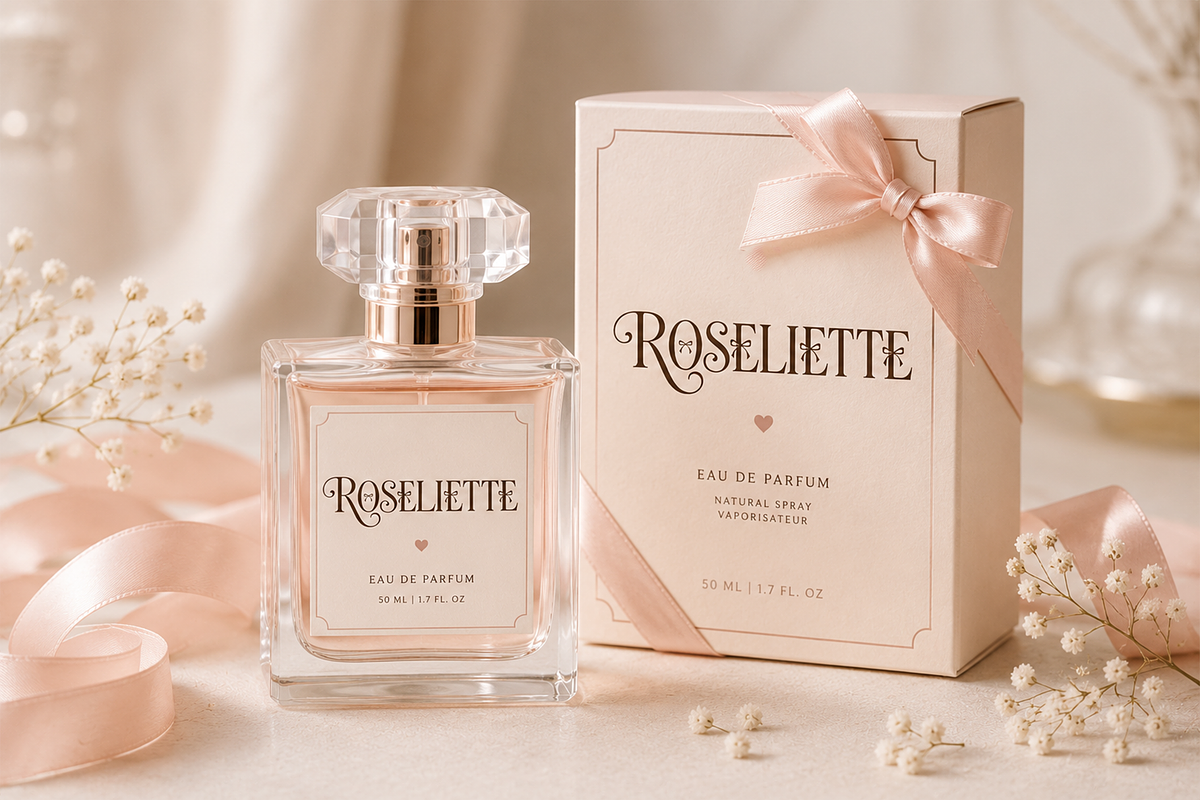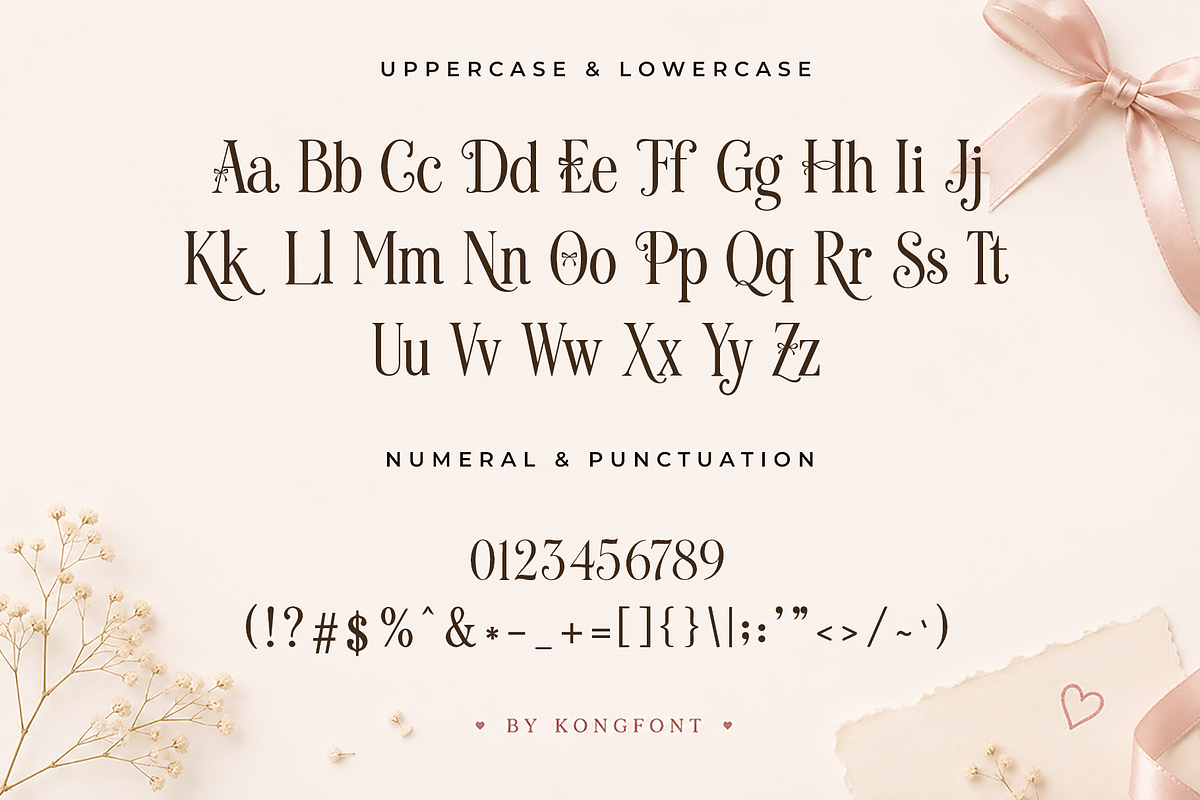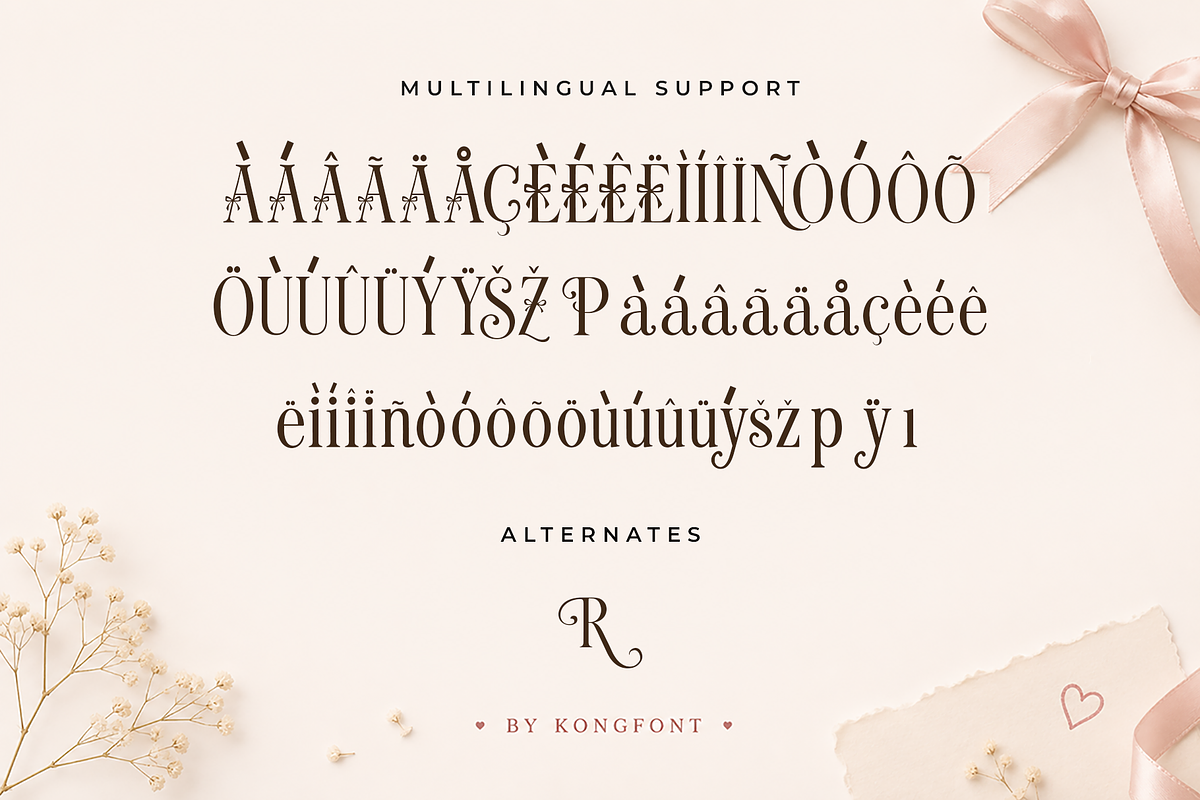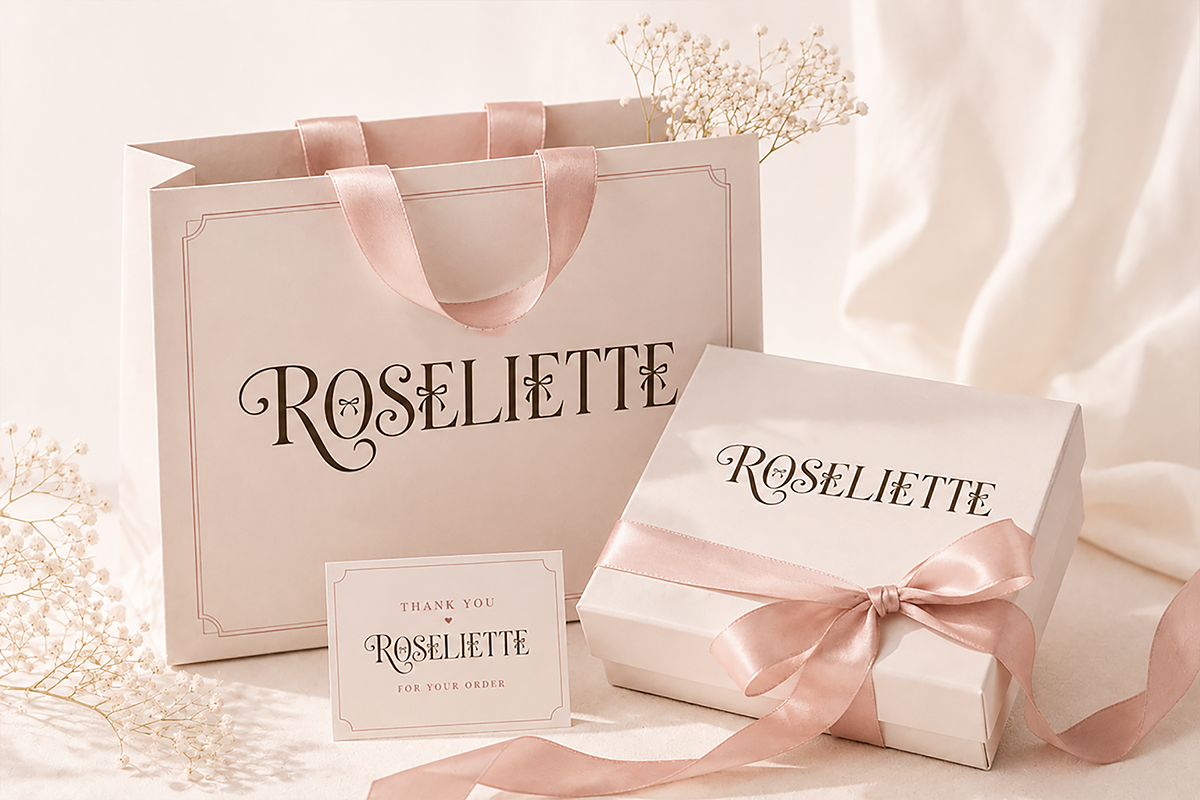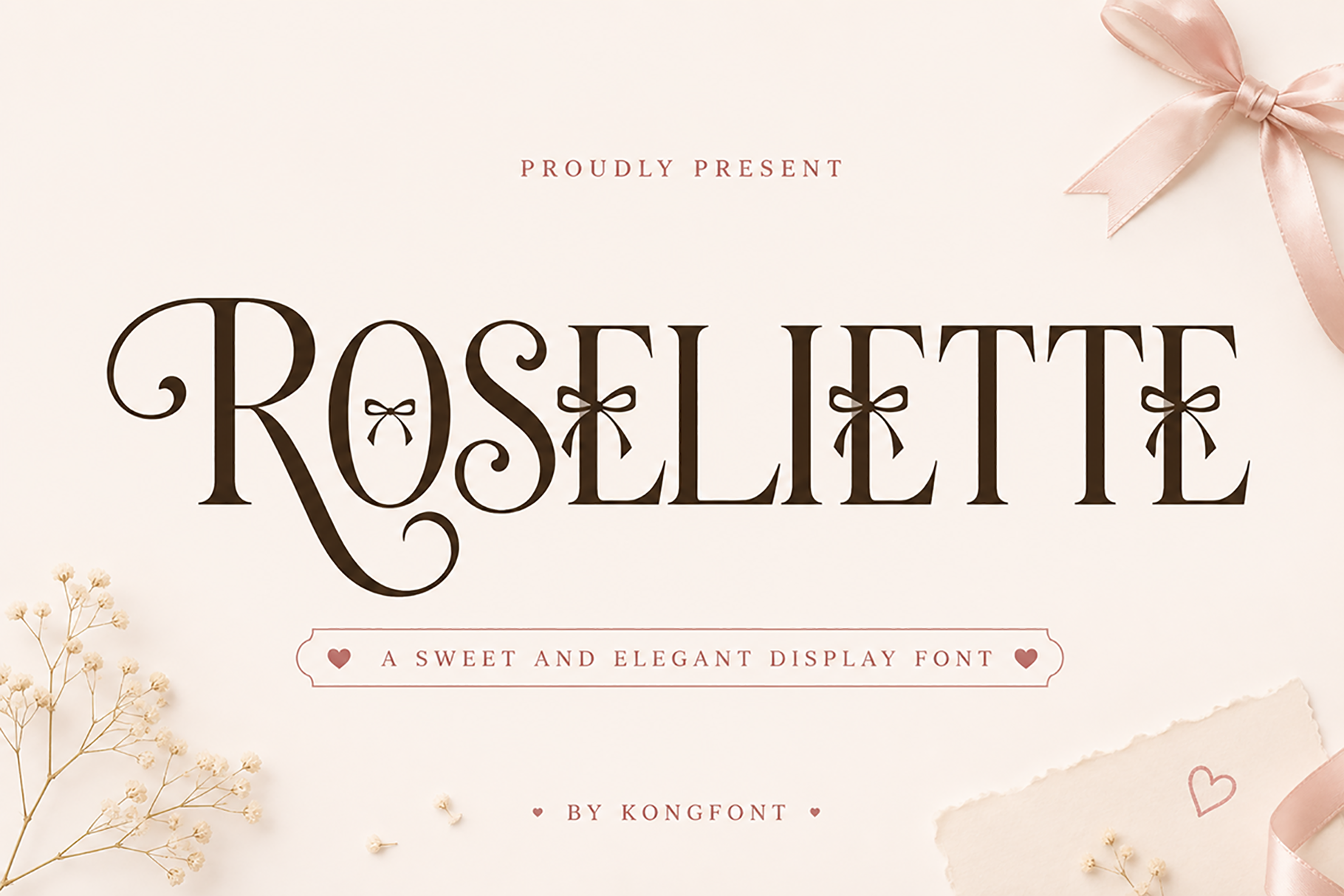
Roseliette - Elegant Serif Font
Roseliette - Sweet Elegant Display Serif Font
Meet "Roseliette," a sweet and elegant display serif font designed with graceful curves, refined proportions, and delicate decorative details. Its romantic personality combines classic serif beauty with a soft feminine touch, creating typography that feels sophisticated, charming, and memorable.
Roseliette works wonderfully for wedding brands, bridal designs, cosmetics, perfume packaging, boutiques, jewelry, feminine lifestyle products, Valentine projects, and romantic stationery. The decorative details add personality while maintaining a polished and luxurious appearance.